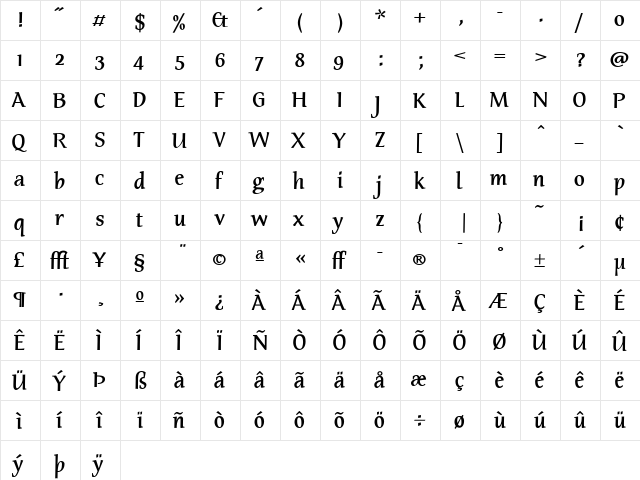
Tarquinius DemiBold
Design Context for Tarquinius Typeface
Tarquinius takes a measured approach to typography — its balanced proportions and neutral character make it a reliable workhorse for both digital and print work. The heavy weight commands attention and anchors typographic hierarchies.